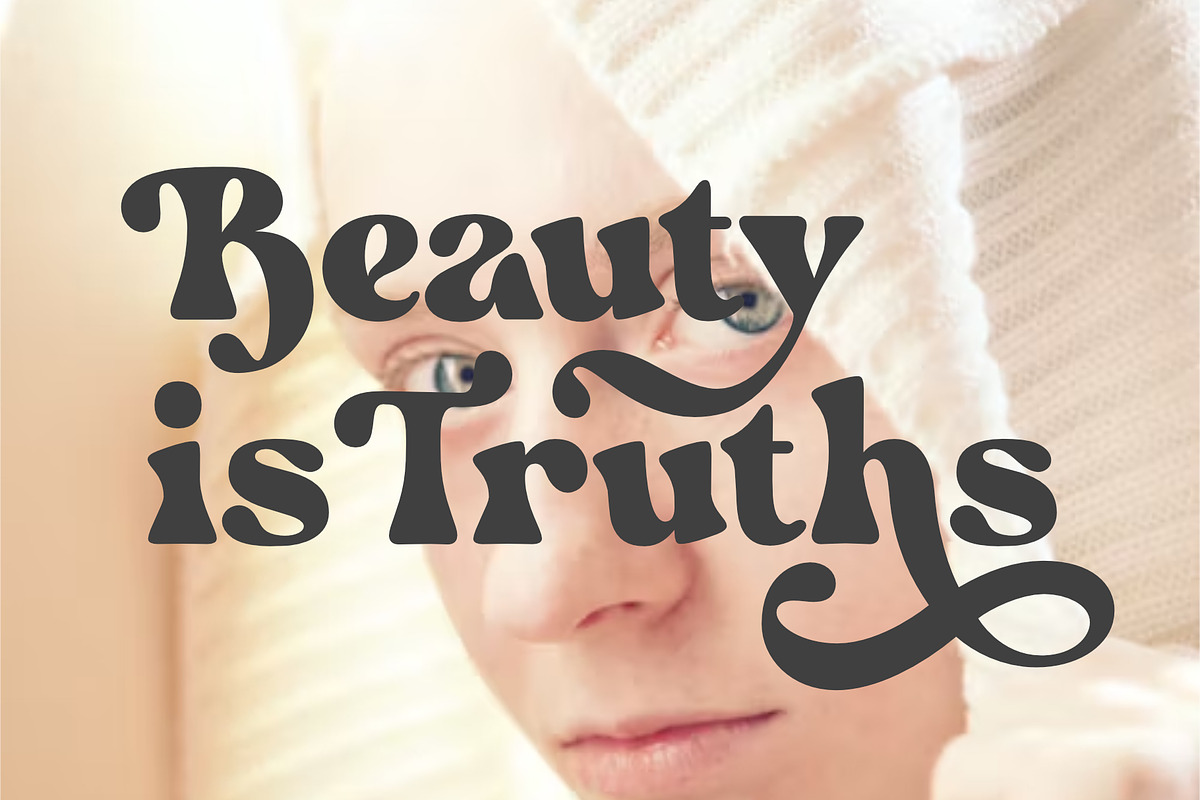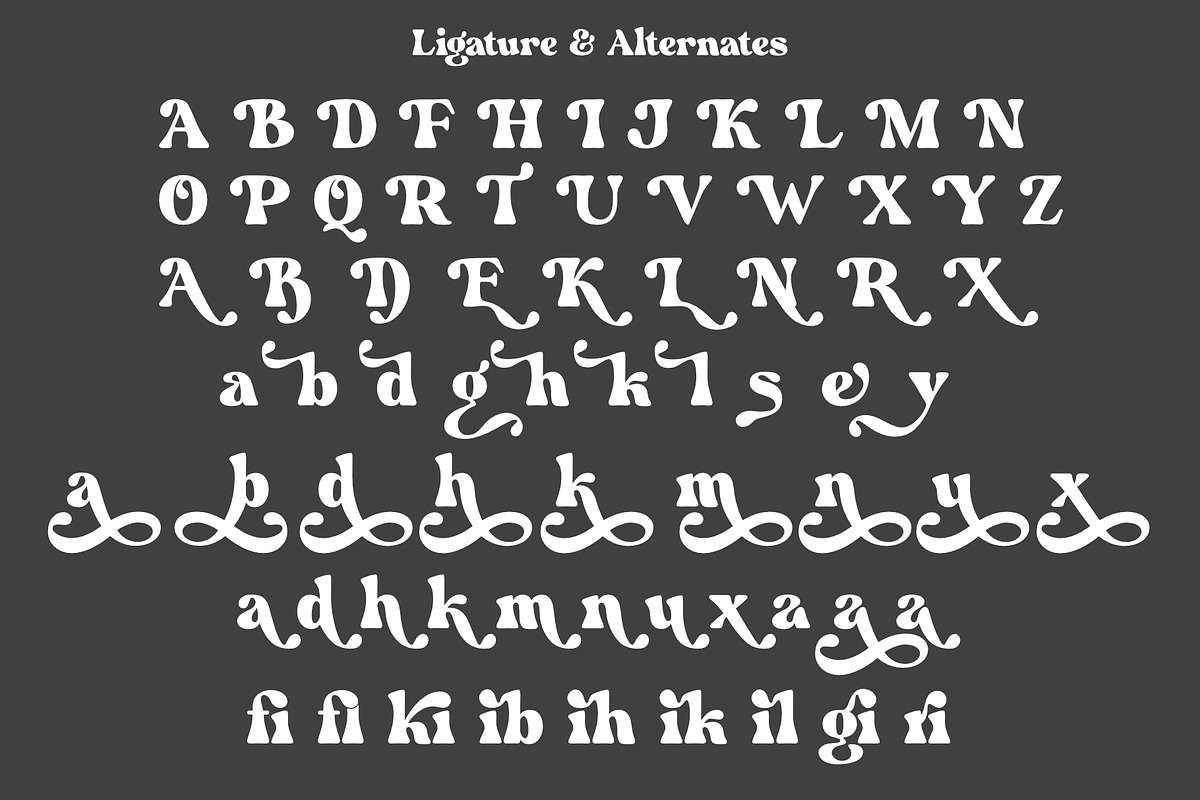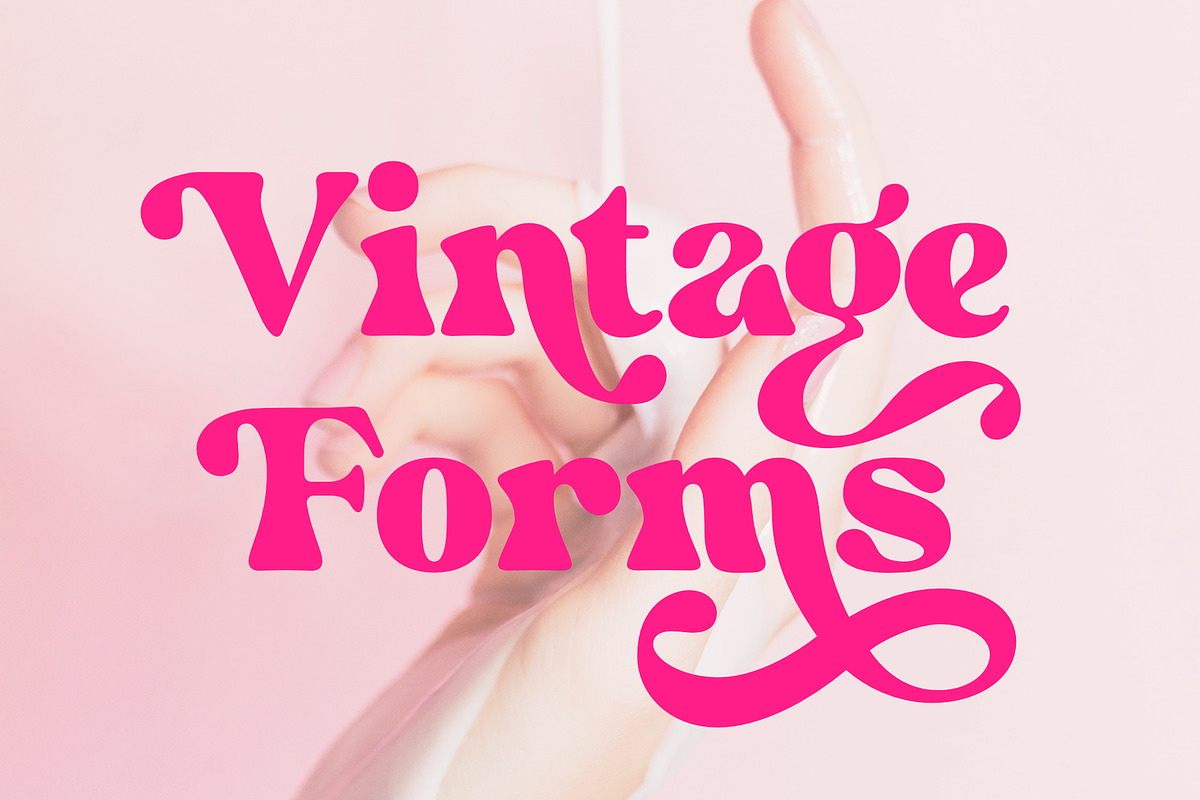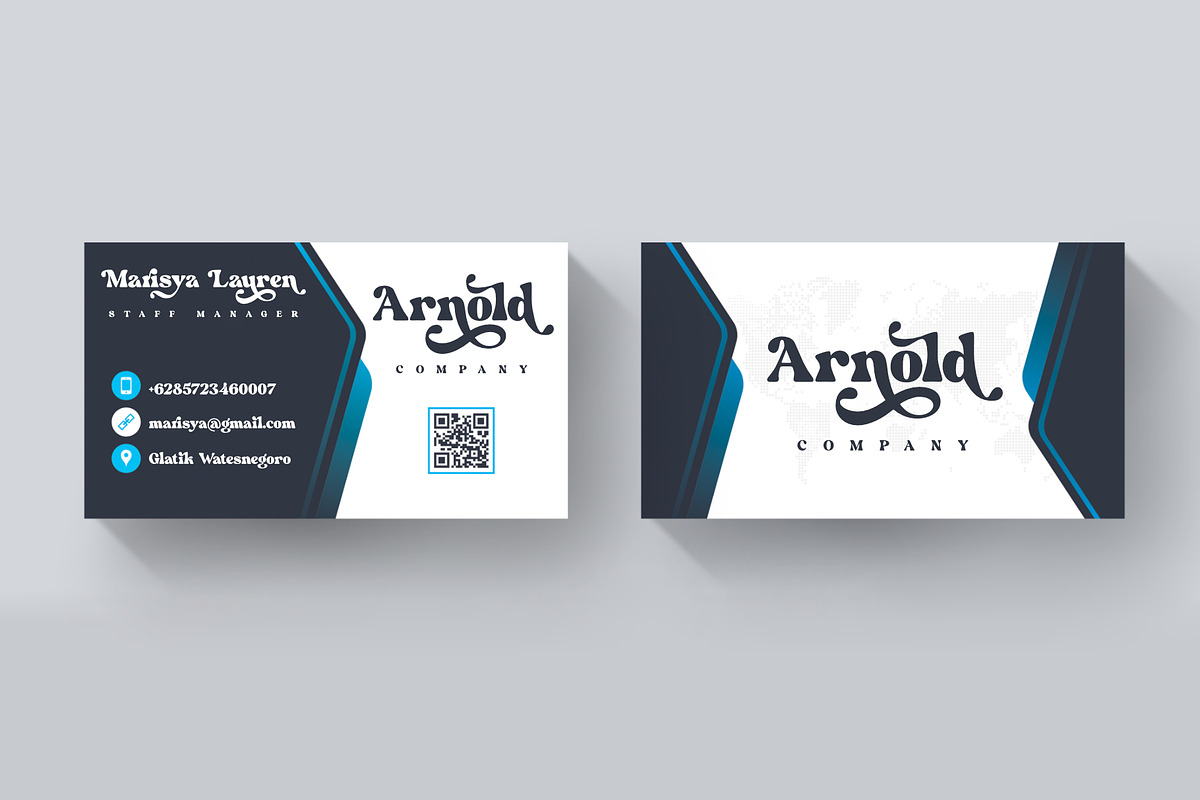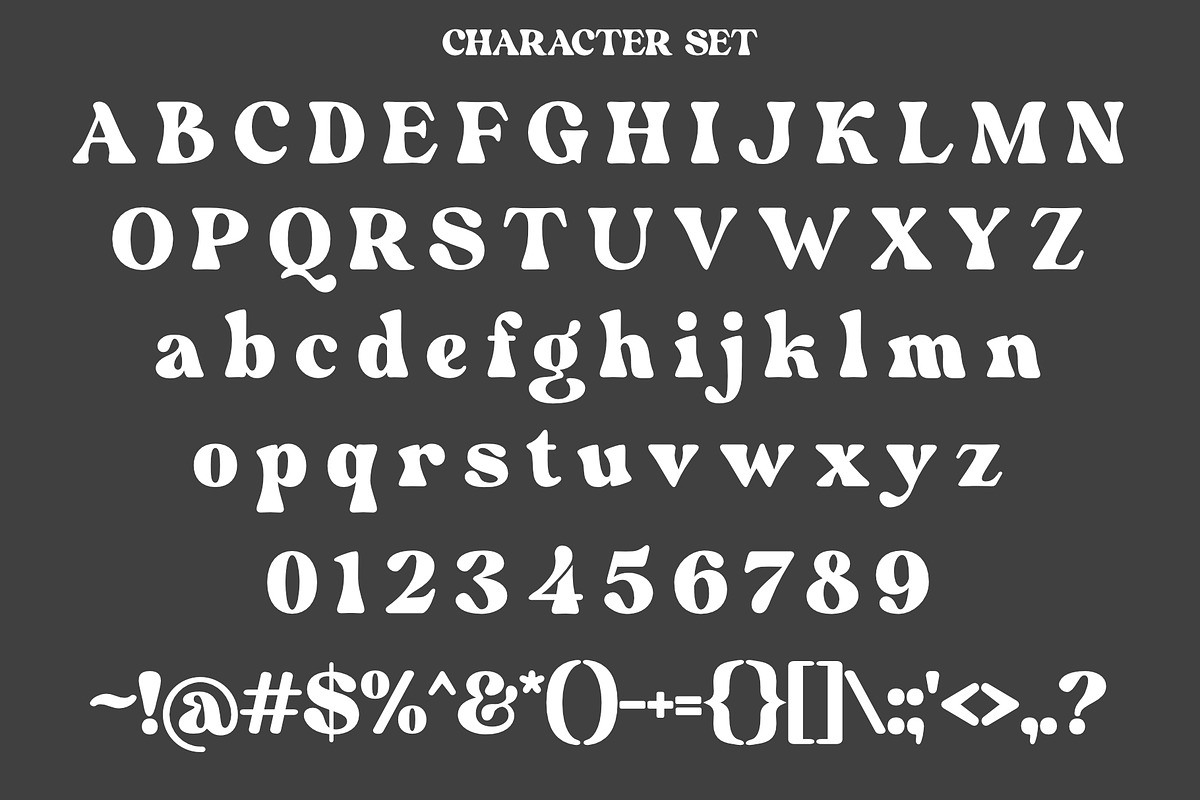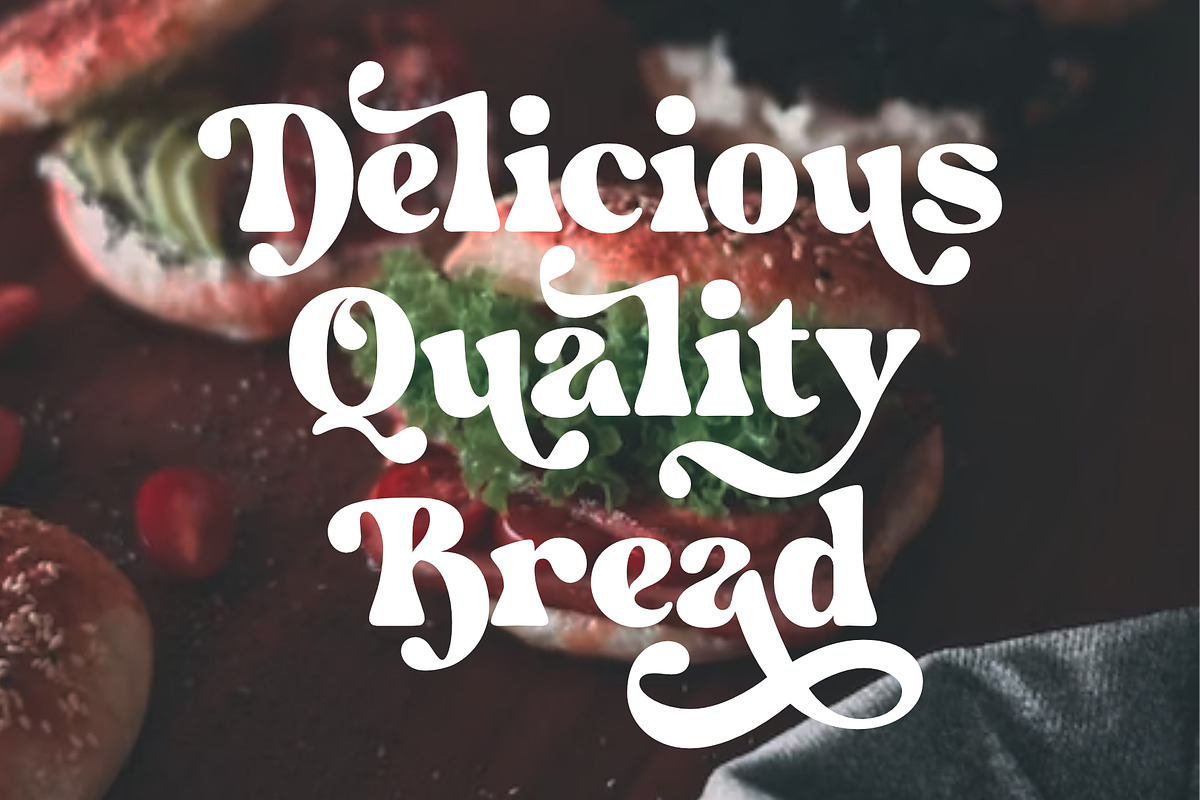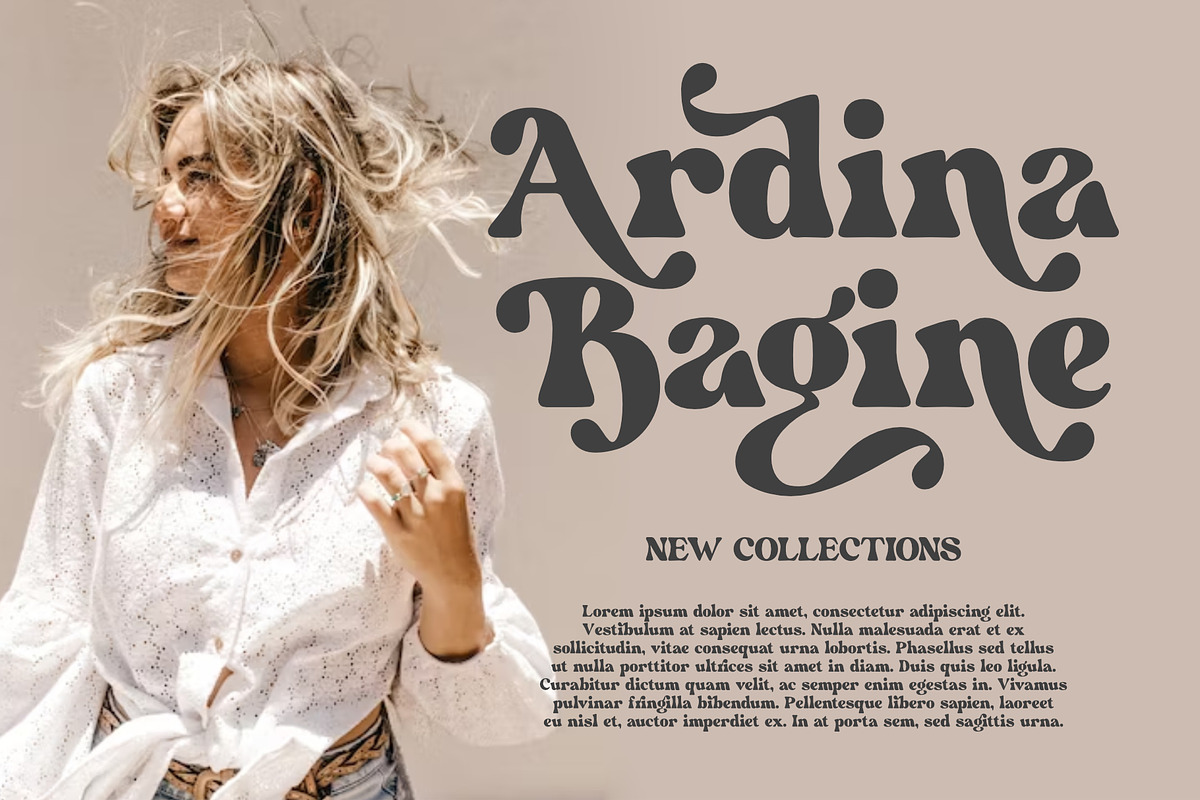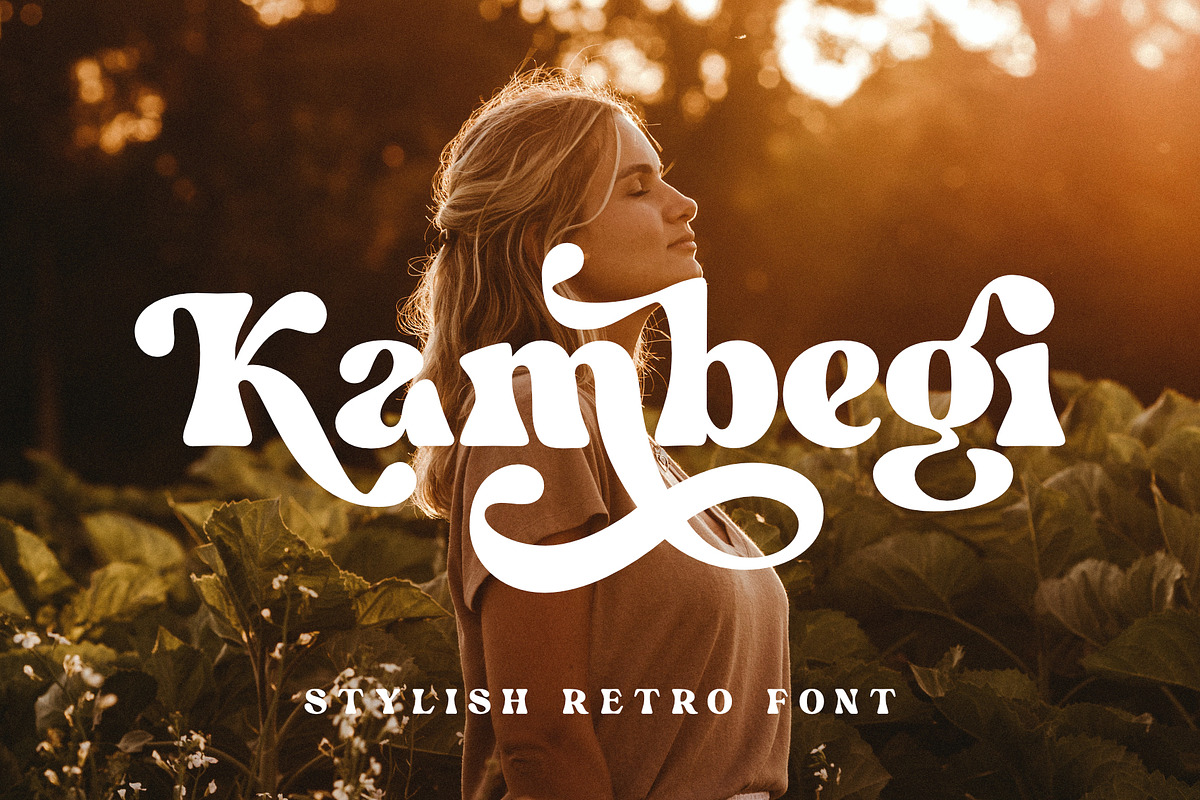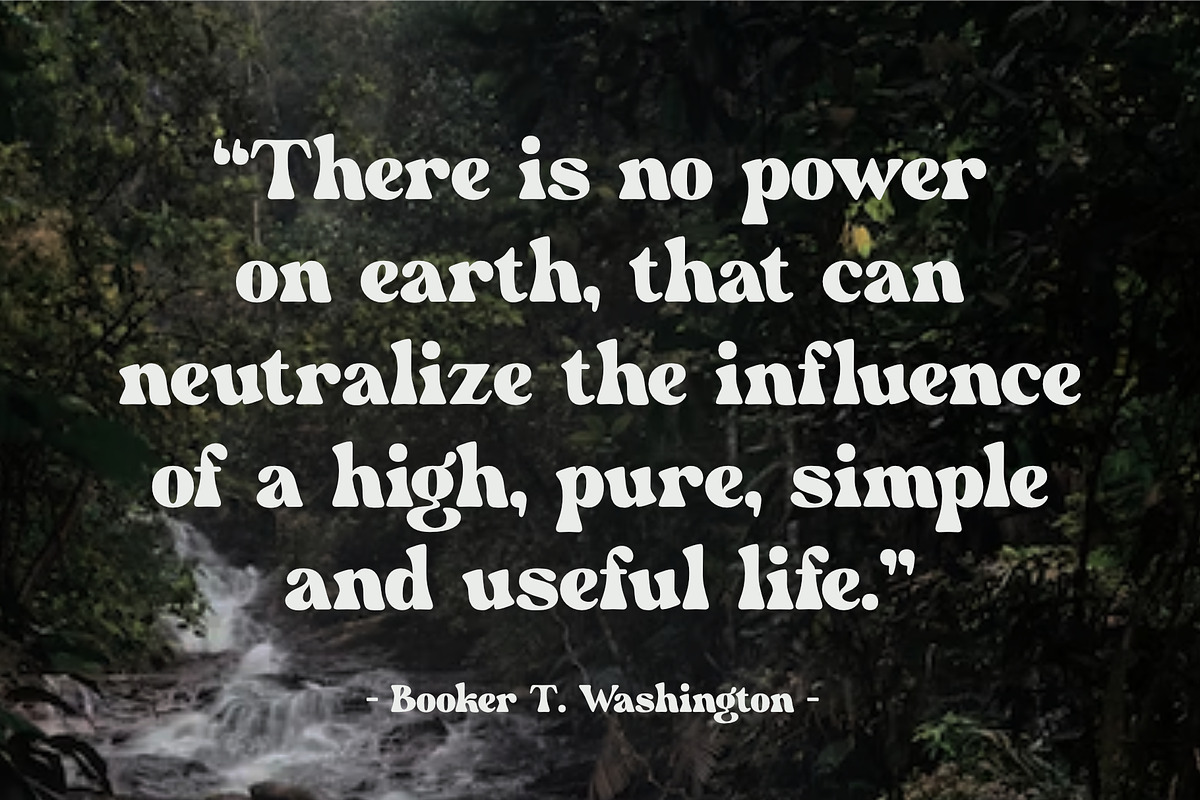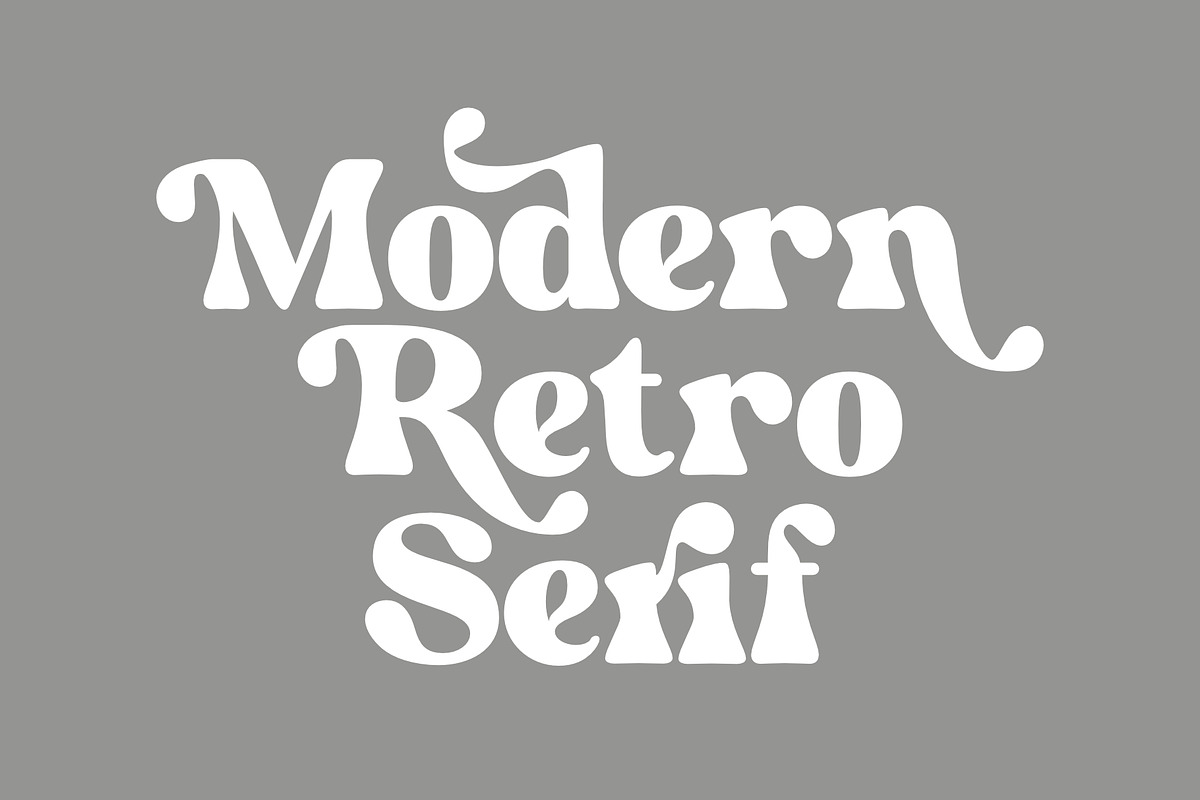
Kambegi
Kambegi is a bold retro serif font with a casual feel and a clean, great modern retro aesthetic. Use this Kambegi serif font to add a special retro modern touch to any design idea you can think of. This font is perfectly made to be applied especially to logos, and many other formal shapes such as invitations, labels, logos, magazines, books, greeting / wedding cards, packaging, fashion, make up, stationery, novels, labels or any type.